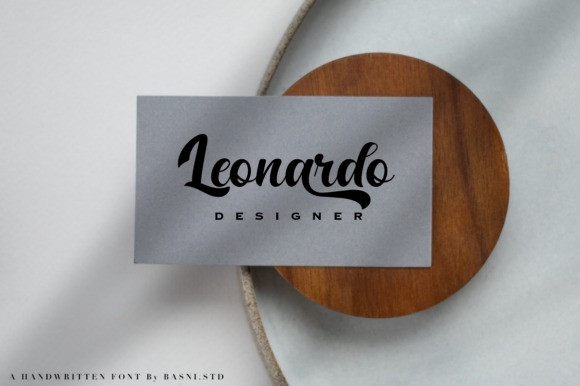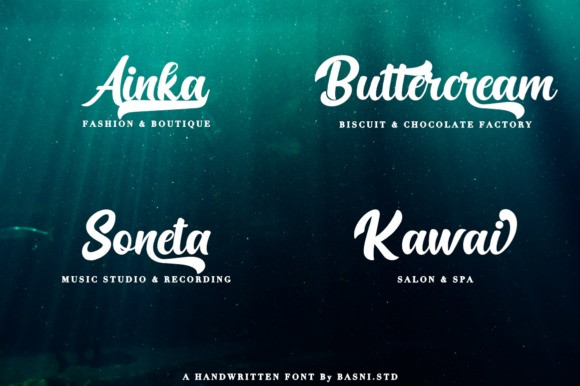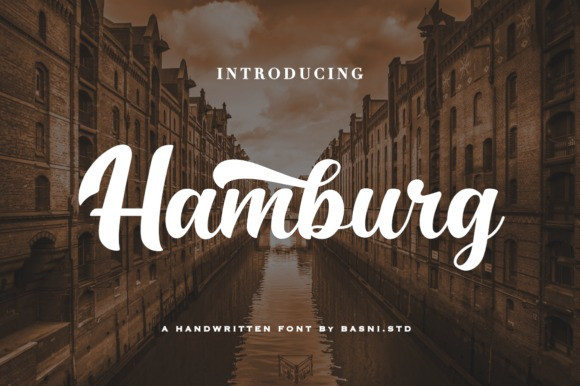
Hamburg Font
Hamburg Font is a beautiful and gorgeous script font. It is PUA encoded, which means you can access all of the glyphs and swashes with ease!
Use this font for your designs and explore its endless possibilities.